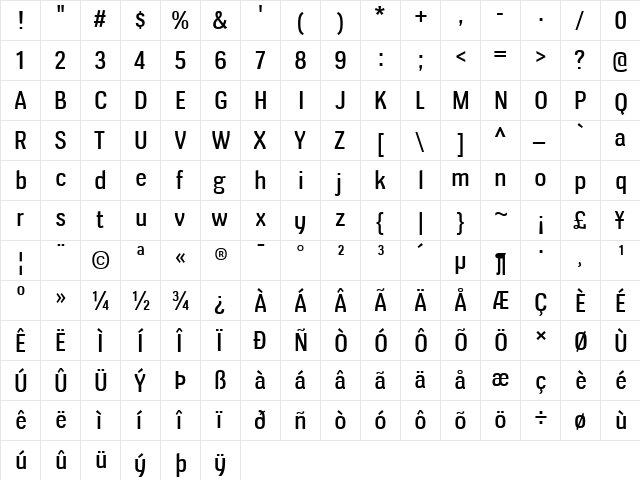
Veriox Regular
Design Context for Veriox Typeface
Veriox takes a measured approach to typography — its balanced proportions and neutral character make it a reliable workhorse for both digital and print work.